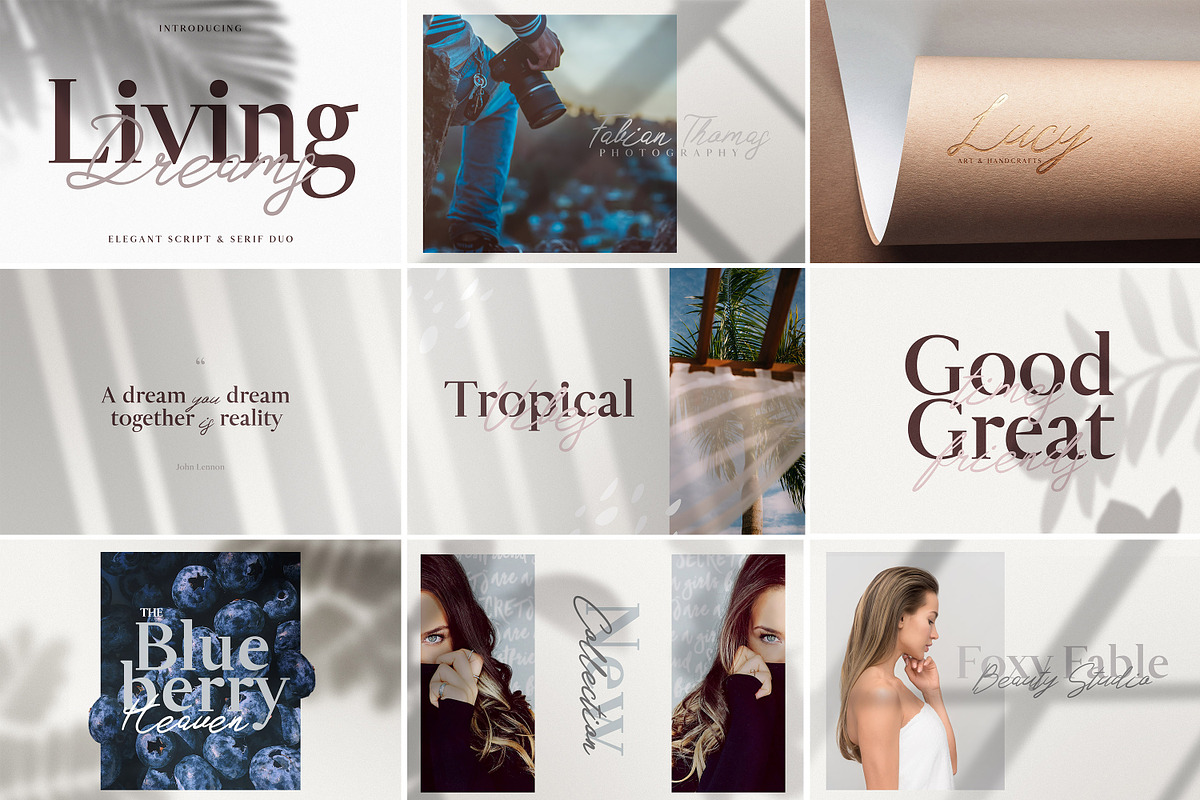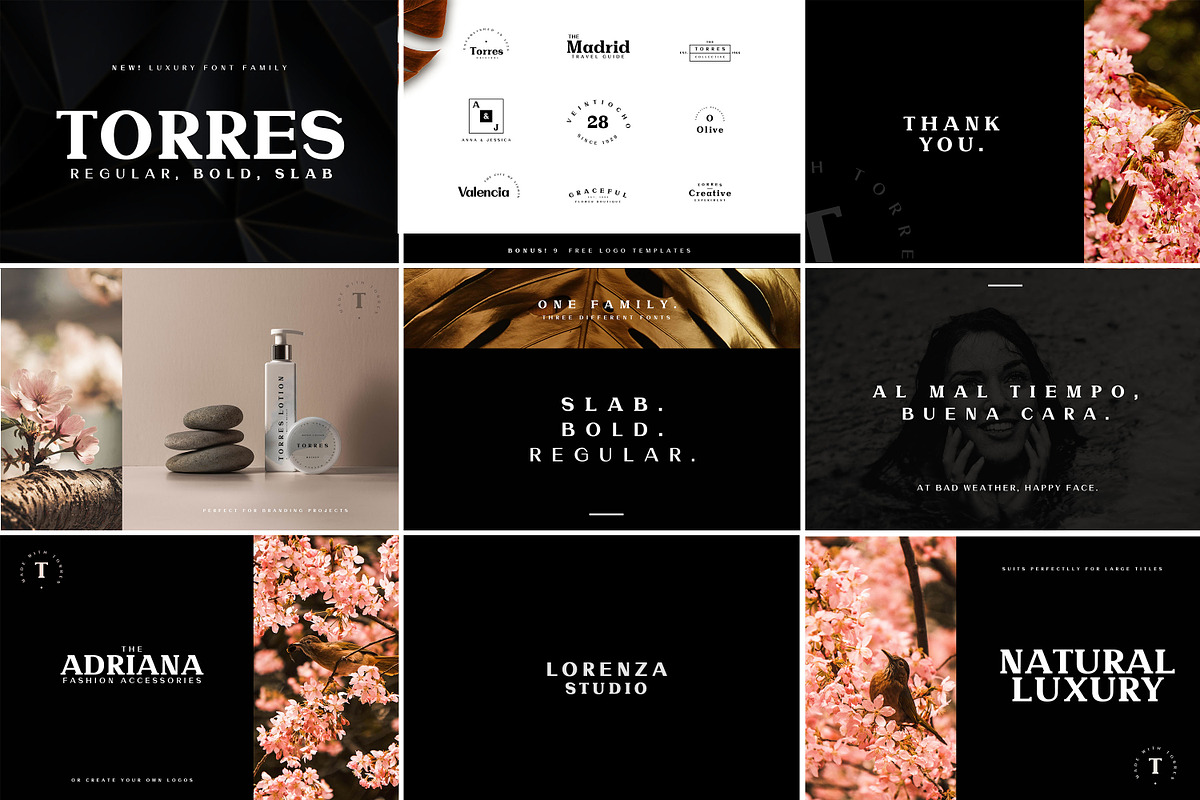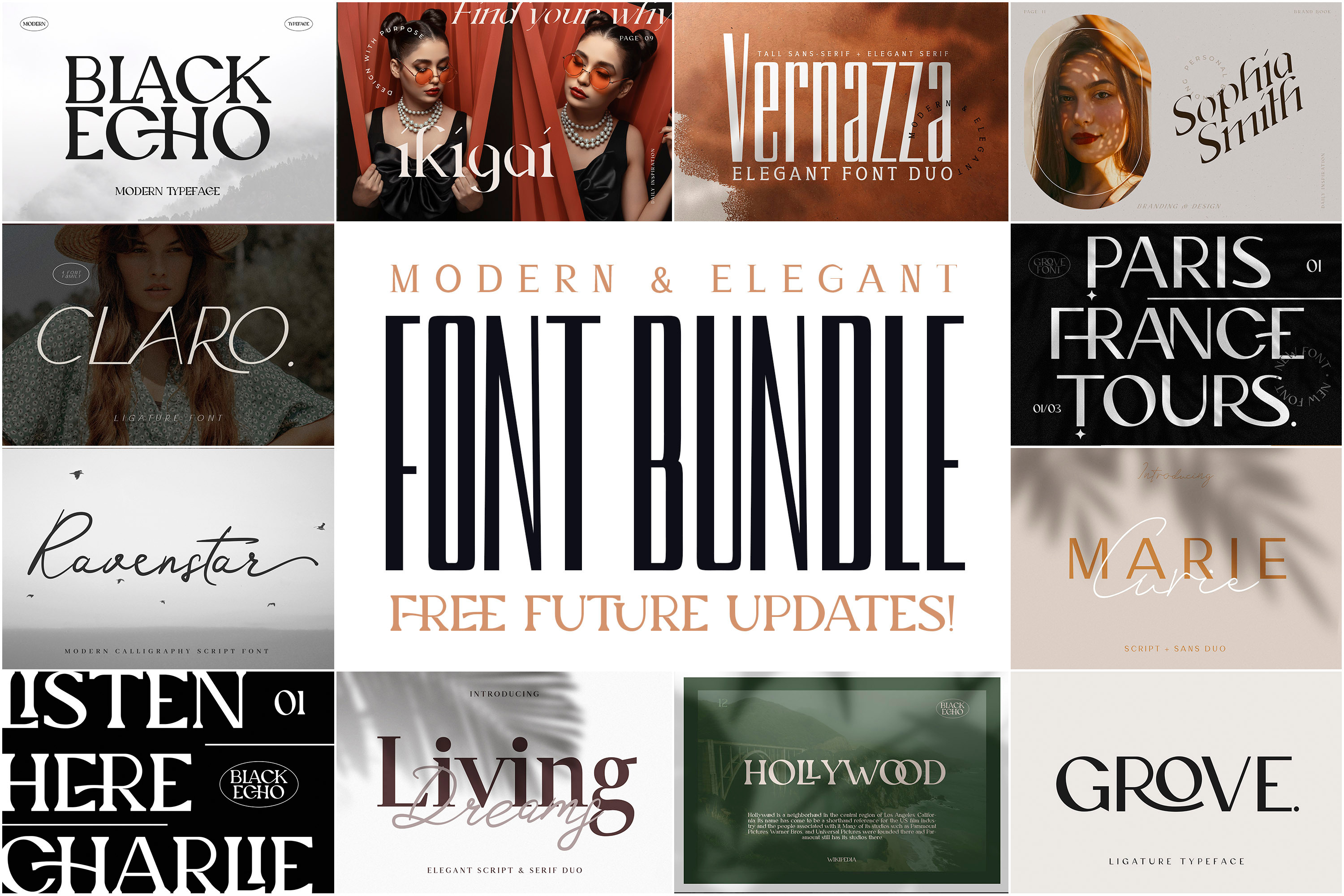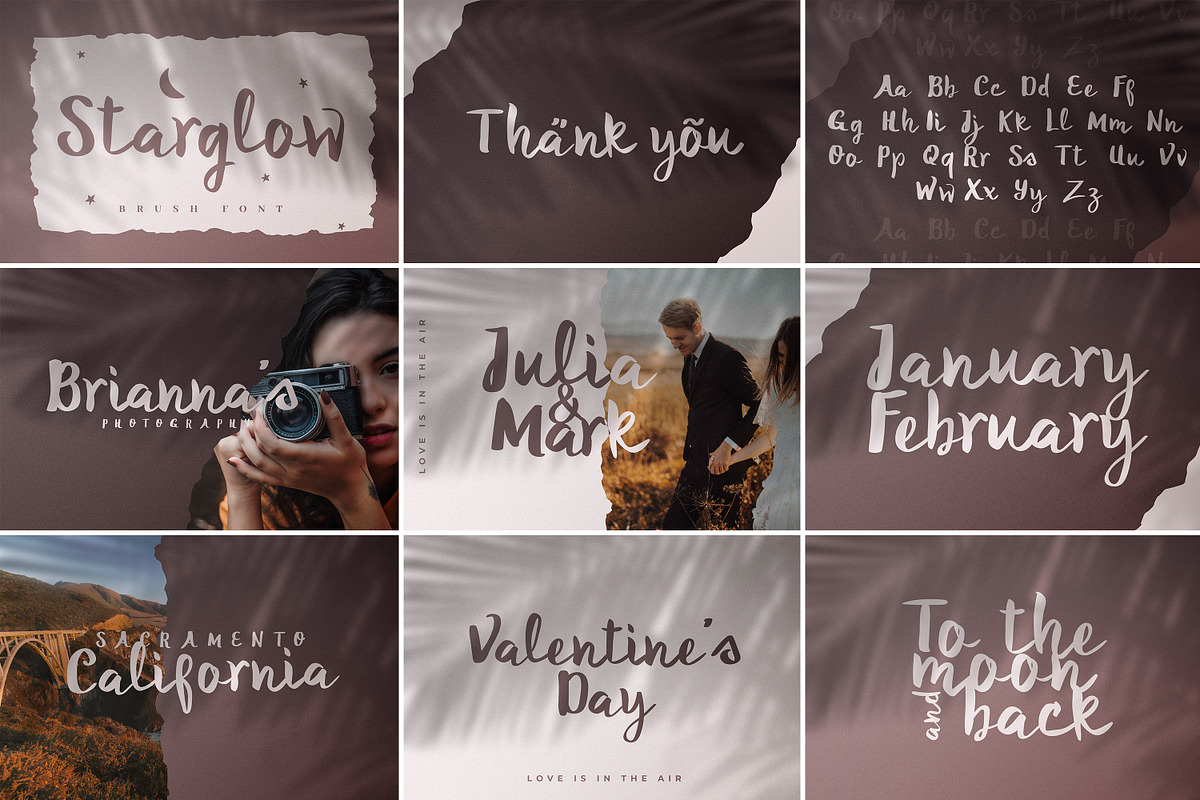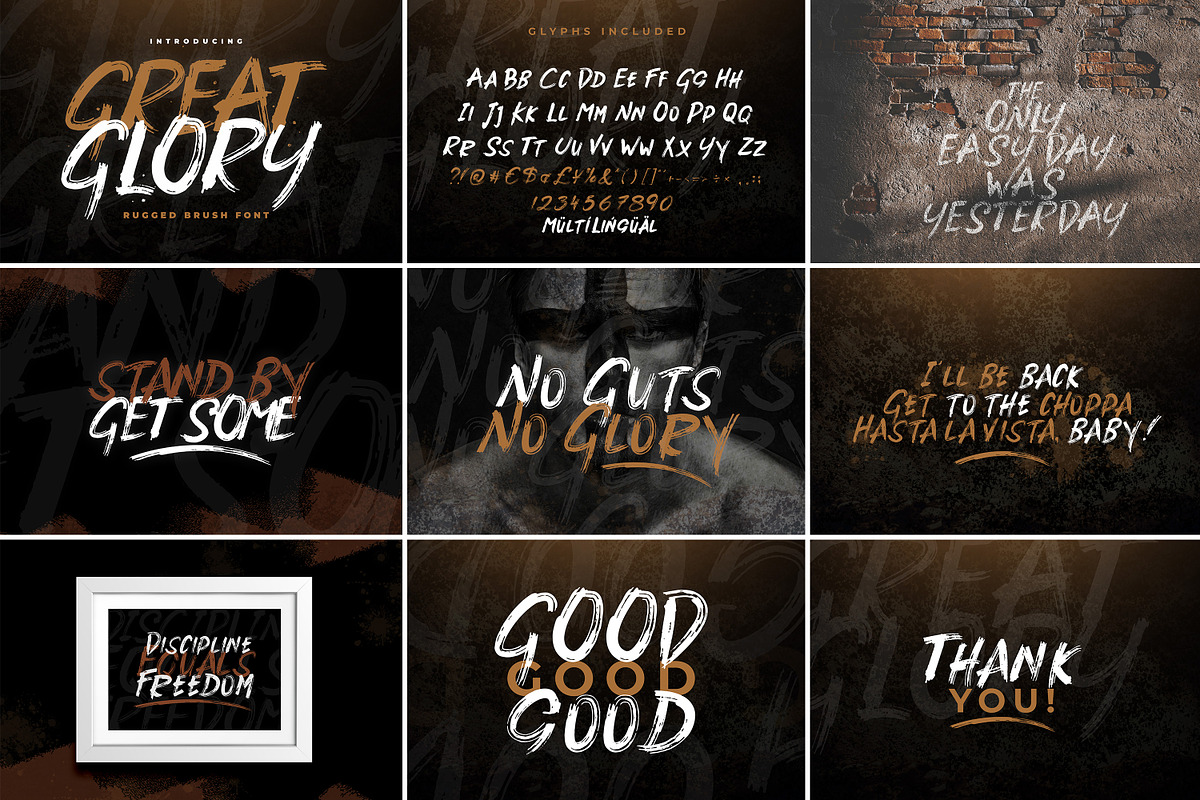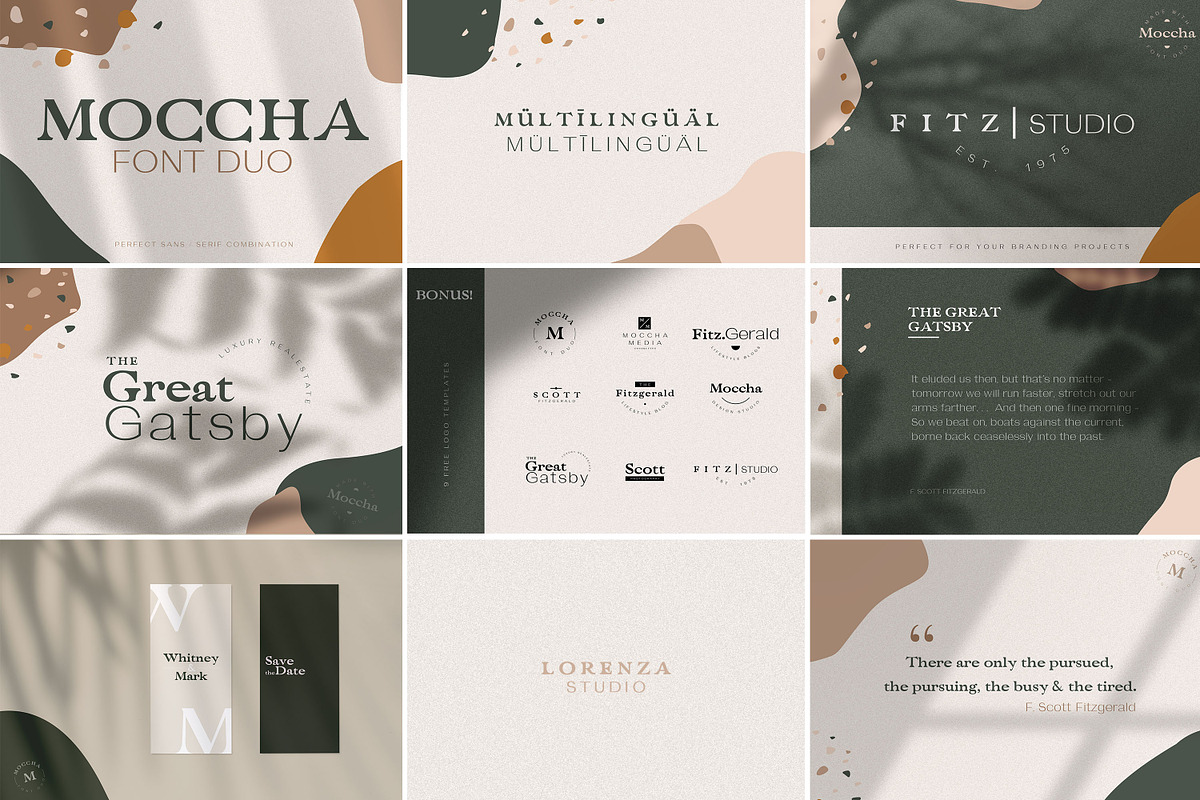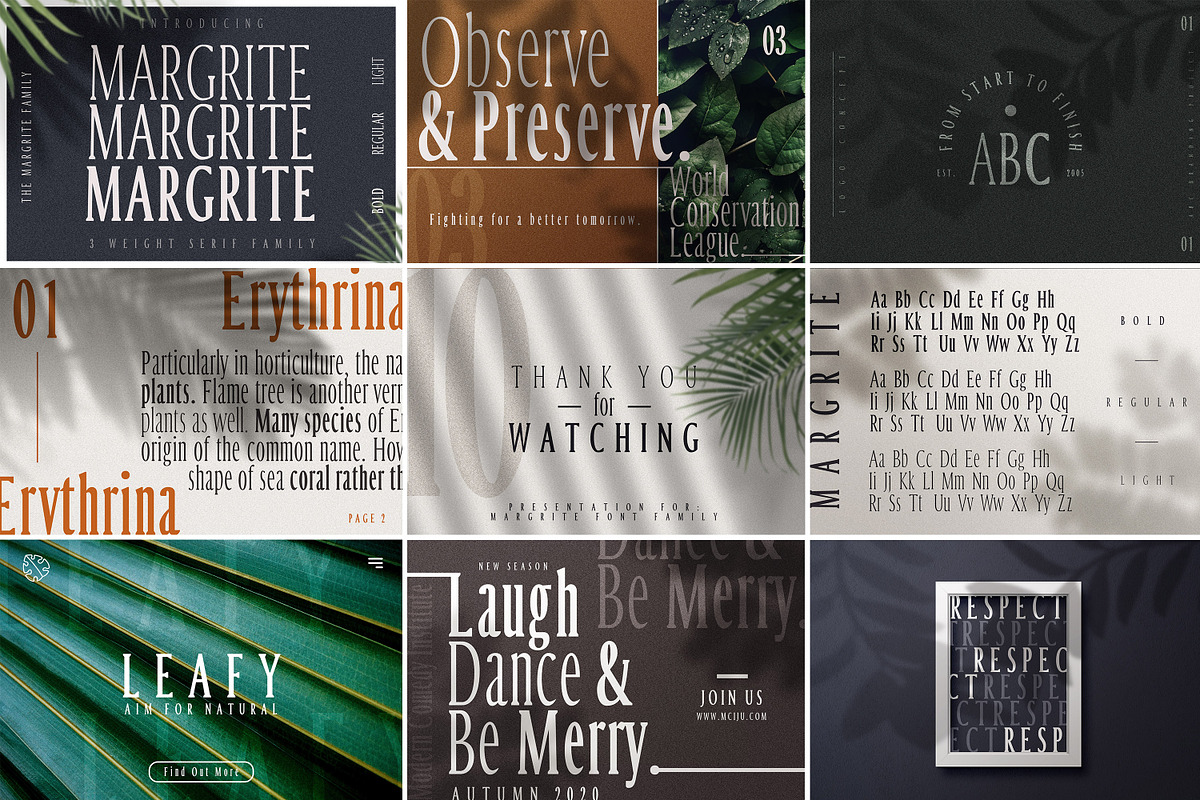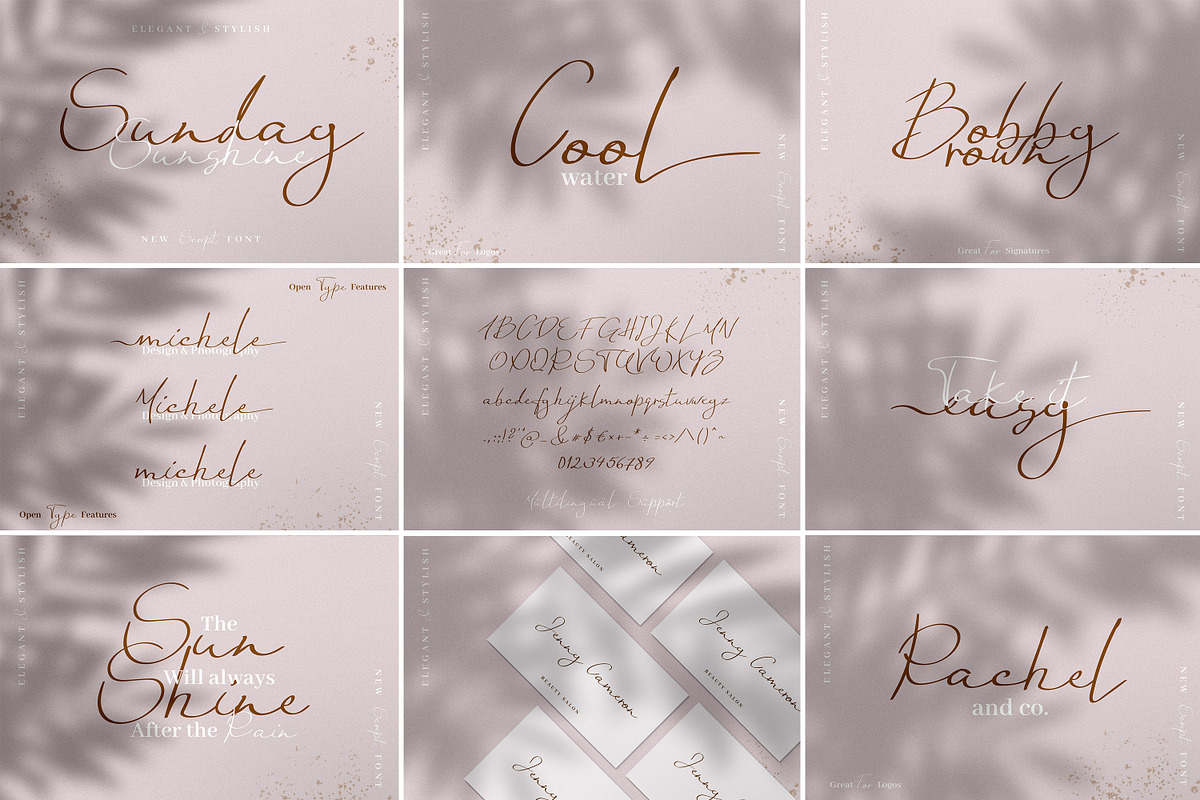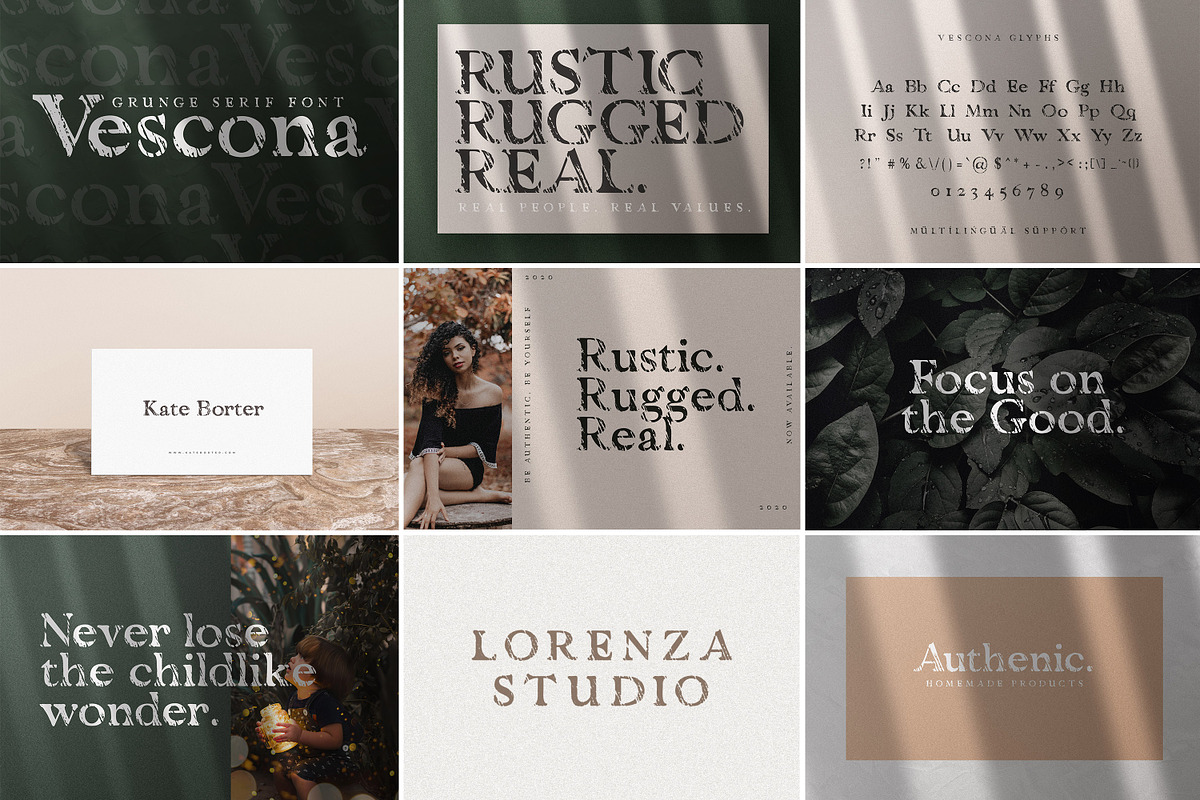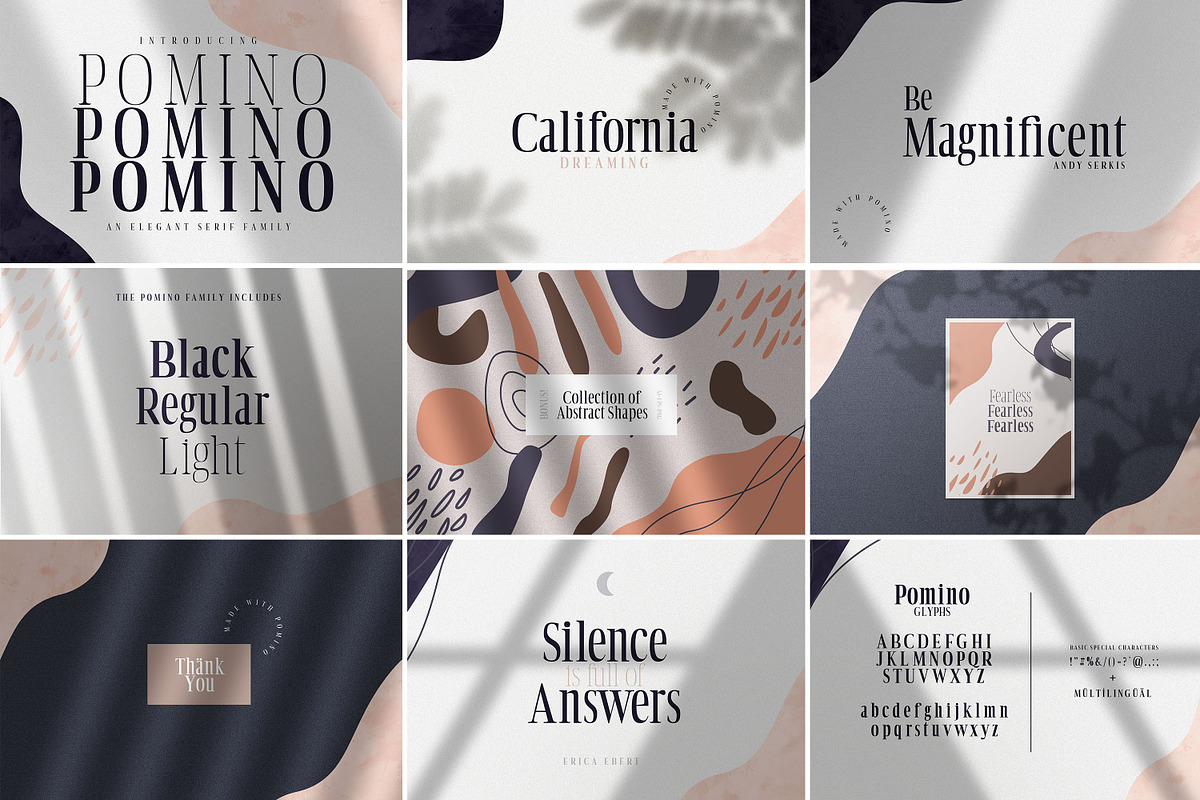
Modern & Elegant Font Bundle
Introducing Modern & Elegant Font Bundle - with 24 different font families and 45 unique fonts in a single huge collection
You 'll get all of my elegant and modern script, serif and sans-serif fonts that I have worked on over the last years - All in one single bundle. This bundle primarily consists of fonts with modern, clean and minimalistic vibe, although there are also some rugged and rough grunge textured ones in the mix. Create limitless amount of unique logos, posters, flyers and more!
Here's the list of fonts included in the bundle: